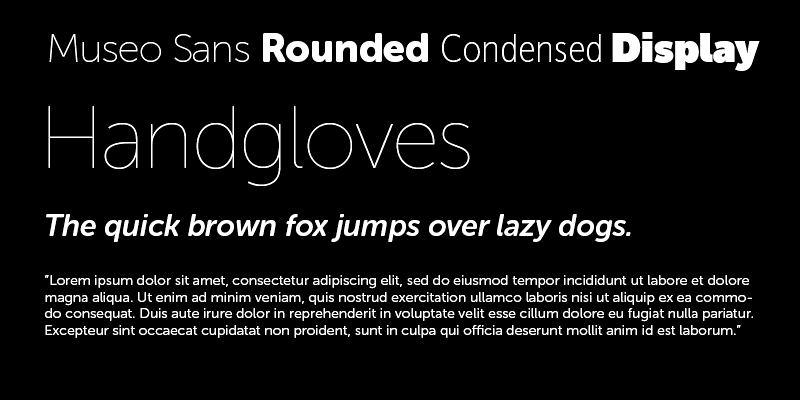
Museo Sans is based on the well-known Museo. It is a sturdy, low contrast, geometric, highly legible sans serif typeface very well suited for any display and text use. There is also a Condensed, a Rounded and a Display family available.
Jos Buivenga lives and works in Arnhem. He started designing type in 1994 and started his exljbris Font Foundry ten years later. He is most known for his Museo font family and also for the way he markets his typefaces.